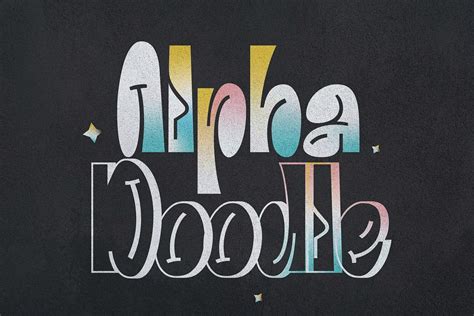
Alpha Doodle Font. Doodling is a style of handwriting where letters or art is drawn absentmindedly. Web embrace the playful spirit of alpha doodle in your next project and watch as it transforms ordinary designs into extraordinary.
Web embrace the playful spirit of alpha doodle in your next project and watch as it transforms ordinary designs into extraordinary. Doodling is a style of handwriting where letters or art is drawn absentmindedly.
Web embrace the playful spirit of alpha doodle in your next project and watch as it transforms ordinary designs into extraordinary. Web embrace the playful spirit of alpha doodle in your next project and watch as it transforms ordinary designs into extraordinary. Doodling is a style of handwriting where letters or art is drawn absentmindedly.